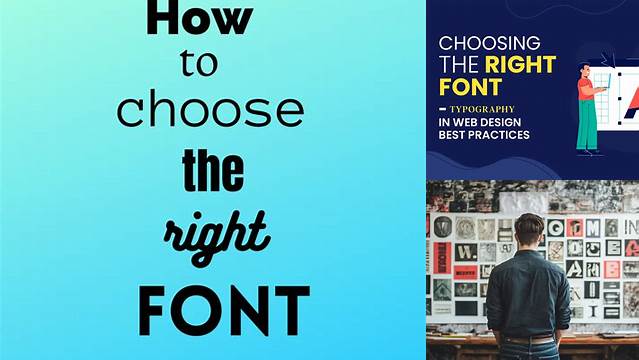
Popular Fonts For Editing: A Comprehensive Guide
Hey guys! Choosing the right font for your editing project can feel like a daunting task. With so many options out there, how do you know which one will best convey your message and engage your audience? Don't worry, I'm here to break it down for you. This guide will walk you through some of the most popular editing fonts, exploring their characteristics, best uses, and how to select the perfect typeface for your specific needs. Let's dive in!
Understanding the Importance of Font Choice
Fonts play a crucial role in visual communication. The right font can enhance readability, create a specific mood, and reinforce your brand identity. Think of fonts as the voice of your text – they communicate personality and tone just as much as the words themselves. Choosing the wrong font can make your project look unprofessional, be difficult to read, and even detract from your message.
Consider your target audience. Are you creating content for a formal audience or a more casual one? A playful, handwritten font might be perfect for a children's book, but it would look out of place in a legal document. Similarly, a sleek, modern sans-serif font might be ideal for a tech startup's website, but it could feel cold and impersonal for a non-profit organization's brochure.
When selecting fonts, think about the overall aesthetic you want to achieve. Do you want your project to feel classic and timeless, or modern and cutting-edge? Do you want to evoke feelings of trust and authority, or creativity and playfulness? The font you choose should align with your brand's personality and the message you're trying to convey. Think about how the font makes you feel. Does it look clean and professional? Does it have a friendly, approachable vibe? Or does it feel cluttered and difficult to read? Your gut reaction can be a valuable guide.
Finally, remember that consistency is key. Avoid using too many different fonts in a single project, as this can make your design look cluttered and unprofessional. Stick to a maximum of two or three fonts, and use them consistently throughout your project. This will help create a cohesive and polished look. For example, you might choose one font for headings and another for body text, or use different weights and styles of the same font family to create visual hierarchy.
Serif Fonts: Classic and Elegant
Serif fonts are characterized by the small decorative strokes, or “serifs,” at the ends of the letterforms. These fonts are often considered classic and elegant, conveying a sense of tradition, authority, and trustworthiness. They are commonly used in print media, such as books, newspapers, and magazines, as well as in formal documents and corporate branding. Serif fonts are thought to improve readability in long blocks of text because the serifs help guide the eye across the page. However, they can sometimes appear cluttered or less legible on screens, especially at smaller sizes.
One of the most popular serif fonts is Times New Roman. It’s a highly legible and widely recognized typeface, making it a safe choice for a variety of projects. However, its ubiquity can also make it feel somewhat generic, so it's best used in situations where clarity and readability are paramount, rather than where you're trying to make a bold visual statement. Times New Roman is a workhorse font that excels in print but can sometimes feel a bit dated in digital contexts.
Another classic serif font is Garamond, which offers a more refined and elegant aesthetic than Times New Roman. Garamond's graceful letterforms and subtle serifs create a sense of sophistication and timelessness. It's an excellent choice for books, magazines, and branding materials that require a touch of class. Garamond's readability and elegance make it a favorite among designers for both print and digital projects, though it's particularly well-suited to print due to its historical roots. The font has a rich history, dating back to the 16th century, adding to its classic appeal.
Georgia is a serif font specifically designed for on-screen readability. It has a larger x-height (the height of the lowercase letters) and bolder strokes than many other serif fonts, making it easy to read on monitors and mobile devices. Georgia is a great choice for websites, blogs, and other digital content where legibility is crucial. It strikes a balance between classic serif elegance and the practical needs of digital displays, making it a versatile option for various online projects. Georgia was designed to be clear and readable even at small sizes on low-resolution screens, a testament to its thoughtful design.
Other popular serif fonts include Palatino, Baskerville, and Caslon. Each of these fonts has its unique personality and characteristics, so it's worth experimenting to find the one that best suits your project. Palatino, for example, offers a calligraphic feel, while Baskerville exudes a sense of refinement and authority. Caslon, with its balanced and harmonious letterforms, is another versatile choice for both print and digital applications. Exploring the nuances of these different serif fonts can significantly enhance the visual impact of your work.
Sans-Serif Fonts: Modern and Minimalist
Sans-serif fonts, as the name suggests, lack the serifs that characterize serif fonts. This gives them a clean, modern, and minimalist look. Sans-serif fonts are often used in digital media, such as websites, apps, and presentations, as well as in branding materials and signage. They tend to be more legible on screens than serif fonts, especially at smaller sizes, due to their simpler letterforms. The absence of serifs contributes to a less cluttered appearance, making them ideal for contemporary designs.
Arial is one of the most widely used sans-serif fonts, known for its clean lines and excellent readability. It's a versatile font that works well in a variety of contexts, from body text to headlines. Arial's ubiquity makes it a safe and practical choice, particularly in situations where cross-platform compatibility is essential. However, like Times New Roman, its widespread use can also make it feel somewhat generic, so consider whether it aligns with your desired aesthetic.
Helvetica is another highly popular sans-serif font, prized for its neutrality and clarity. It has a clean, minimalist design that makes it suitable for a wide range of applications, from corporate branding to editorial design. Helvetica's geometric forms and even spacing contribute to its exceptional legibility, making it a go-to choice for designers seeking a timeless and versatile typeface. Its clean lines and understated elegance have made it a favorite for everything from signage systems to corporate communications.
Open Sans is a humanist sans-serif font designed with optimized readability for print, web, and mobile interfaces. It has a friendly and approachable feel, making it a great choice for websites and apps that prioritize user experience. Open Sans's open letterforms and balanced proportions contribute to its excellent legibility across different platforms and screen sizes. Its clean and approachable design makes it particularly well-suited for user interfaces and web content.
Other popular sans-serif fonts include Futura, Montserrat, and Roboto. Futura is a geometric sans-serif font with a distinctive modernist aesthetic, ideal for designs that require a clean and futuristic look. Montserrat, inspired by 20th-century urban typography, offers a stylish and contemporary feel, while Roboto, developed by Google, is a versatile and highly legible font optimized for digital reading. These fonts each bring a unique character to the table, offering a diverse range of options for designers seeking a modern sans-serif typeface.
Display Fonts: Adding Personality and Flair
Display fonts are designed for headlines, logos, and other short bursts of text where visual impact is paramount. They often have distinctive and expressive letterforms that can add personality and flair to your designs. Display fonts come in a wide variety of styles, from elegant scripts to bold, geometric designs, allowing you to create a unique and memorable visual identity. These fonts are not typically suitable for body text due to their often intricate or unconventional designs, which can hinder readability in longer passages.
When choosing a display font, it's essential to consider the overall tone and message of your project. A playful and whimsical font might be perfect for a children's book, while a sophisticated script font might be ideal for a wedding invitation. The right display font can be a powerful tool for grabbing attention and setting the mood. Think about the specific context in which the font will be used and choose a typeface that aligns with your brand's personality and aesthetic.
For example, script fonts, such as Brush Script or Pacifico, can add a touch of elegance and personality to your designs. They mimic the fluidity of handwriting and are often used for invitations, logos, and other projects where a personal touch is desired. However, script fonts can be difficult to read in large blocks of text, so they are best reserved for headlines and short phrases.
Geometric display fonts, like Bebas Neue or Montserrat, offer a clean and modern look. They feature simple, geometric shapes and are often used in branding materials, posters, and websites. These fonts are highly versatile and can be used to create a range of different styles, from minimalist to bold and impactful.
Vintage-inspired display fonts, such as Playfair Display or Lobster, evoke a sense of nostalgia and craftsmanship. They are often used in projects that aim to create a retro or classic feel, such as posters, packaging, and branding materials. These fonts can add character and charm to your designs, but it's important to use them sparingly to avoid overwhelming the viewer.
Remember, display fonts are meant to make a statement, so don't be afraid to experiment and try something different. However, always prioritize readability and ensure that your chosen font complements the overall design of your project. A well-chosen display font can be the perfect finishing touch, adding that extra element of visual interest and personality.
Pairing Fonts: Creating Visual Harmony
Pairing fonts effectively is crucial for creating visually appealing and cohesive designs. The goal is to choose fonts that complement each other, creating a harmonious balance between different styles and personalities. A well-executed font pairing can enhance readability, establish visual hierarchy, and reinforce your brand's identity. Conversely, a poorly chosen font pairing can make your design look cluttered, unprofessional, and difficult to read. Guys, let’s discuss how to choose fonts that complement each other.
A classic approach to font pairing is to combine a serif font with a sans-serif font. This creates a visual contrast that can be both pleasing and functional. For example, you might pair a serif font like Garamond for body text with a sans-serif font like Helvetica for headings. This combination provides a clear distinction between different text elements, improving readability and visual hierarchy. The contrast between the traditional serifs and the modern sans-serif letterforms creates a dynamic yet balanced look.
Another strategy is to use different weights and styles of the same font family. For instance, you could pair a bold version of Open Sans for headings with a regular weight for body text. This approach creates a cohesive and unified look while still providing visual distinction. Using variations within the same font family ensures that the fonts share a common design DNA, resulting in a harmonious and professional appearance. It's a subtle yet effective way to create visual interest without introducing conflicting styles.
When pairing fonts, it's important to consider the mood and tone you want to convey. A formal and professional design might benefit from a pairing of classic serif fonts, while a more modern and casual design might pair a sans-serif font with a script font. Think about the personality of your brand and the message you want to communicate, and choose fonts that reflect those qualities. The font pairing should reinforce the overall aesthetic and contribute to the desired emotional response from your audience.
Avoid pairing fonts that are too similar, as this can create a sense of visual monotony. Instead, look for fonts that have distinct characteristics but still complement each other. For example, pairing two different serif fonts with similar letterforms can result in a dull and uninspired design. Aim for contrast in weight, style, or overall character to create a more dynamic and engaging visual experience. The contrast will help guide the reader's eye and make your design more memorable.
Ultimately, the best way to find effective font pairings is to experiment and trust your eye. Try different combinations and see what works best for your project. There are also many online resources and tools that can help you find complementary fonts, such as font pairing generators and design blogs. Don't be afraid to explore different options and push your creative boundaries. A well-chosen font pairing can elevate your design and make a lasting impression.
Conclusion: Choosing the Perfect Font for Your Project
Choosing the right font for your editing project is a crucial step in creating a visually appealing and effective design. By understanding the characteristics of different font types and how they can be used to convey specific moods and messages, you can make informed decisions that enhance the overall impact of your work. Remember to consider your target audience, brand identity, and the specific context in which the font will be used. Guys, think about the message you are conveying when choosing a font.
Serif fonts offer a classic and elegant aesthetic, while sans-serif fonts provide a modern and minimalist look. Display fonts can add personality and flair to headlines and logos, while carefully chosen font pairings can create visual harmony and improve readability. Don't be afraid to experiment and try different combinations to find the perfect typeface for your project. By paying attention to the details of typography, you can elevate your designs and communicate your message with clarity and style.
Ultimately, the best font is the one that best suits your project's needs and aesthetic goals. Take the time to explore your options, consider the principles of typography, and trust your creative instincts. With a little knowledge and experimentation, you can master the art of font selection and create designs that are both visually stunning and highly effective. So go ahead, guys, pick the best fonts for your project and make your project shine!